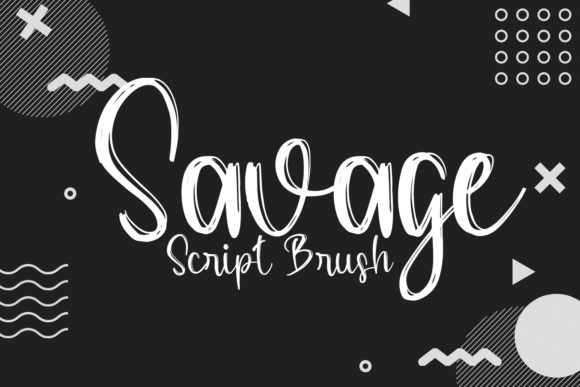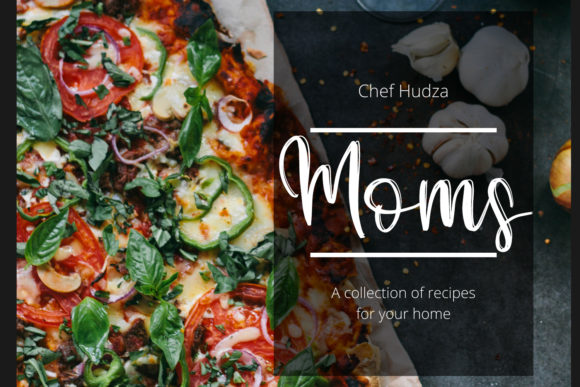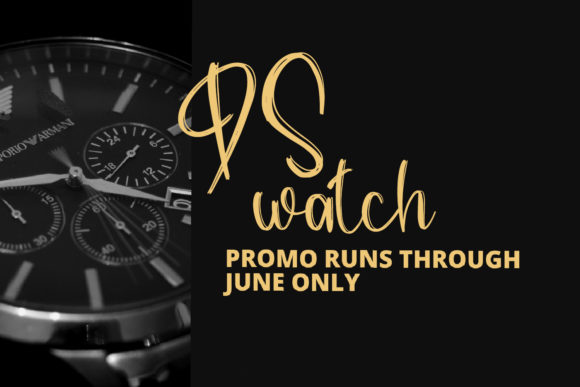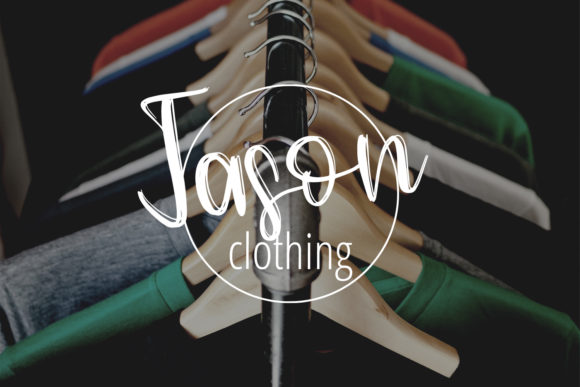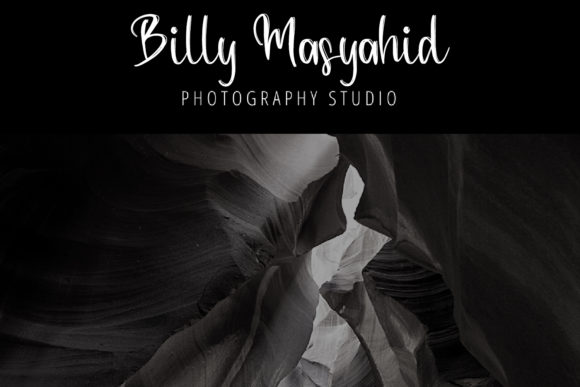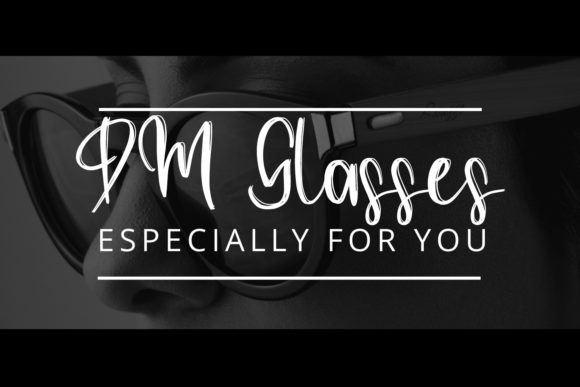
Savage Font
About Savage Font
Savage is a modern script font with a brush style. This font is perfectly suited for traditional media and web. It is also great for crafters and graphic artists alike. Get creative with this font and bring your projects to the next level!